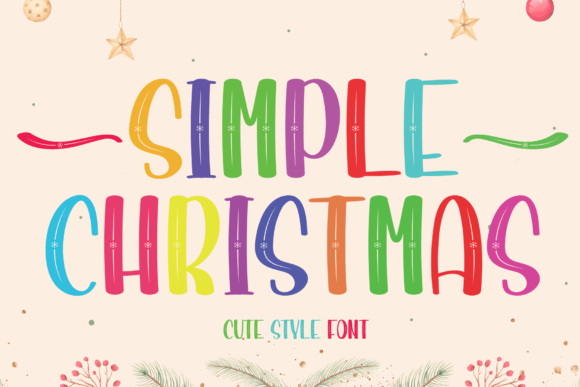
Introducing Simple Christmas Font, the ultimate typeface to elevate your holiday spirit! Crafted by the talented andikastudio, this script font is designed to infuse your creations with an enchanting and cheerful vibe.
Capture the true essence of the holiday season with Simple Christmas Font. Its delightful and playful design will instantly transport you to a world filled with joy and merriment. Whether you're creating Christmas cards, decorating your home, or designing festive party invitations, this font is the perfect choice to add a touch of festive magic.
With its unique and captivating style, Simple Christmas Font is the best font for typography logo designs. It effortlessly combines elegance and playfulness, making it versatile for a wide range of projects. Its charming curves and flowing strokes will bring your logo to life, leaving a lasting impression on anyone who sees it.
But Simple Christmas Font offers so much more than just typography. This font is a powerful tool to express your emotions and spread holiday cheer. Its joyful and vibrant aura will instantly uplift your mood and those around you. Let your creativity shine as you create personalized gifts, stunning social media posts, and eye-catching banners that will leave your audience in awe.
Spread joy, spread cheer, and spread the magic of Simple Christmas Font. Get ready to create unforgettable experiences and capture the hearts of your audience. Elevate your holiday designs with this must-have font that will make every project a true work of art.